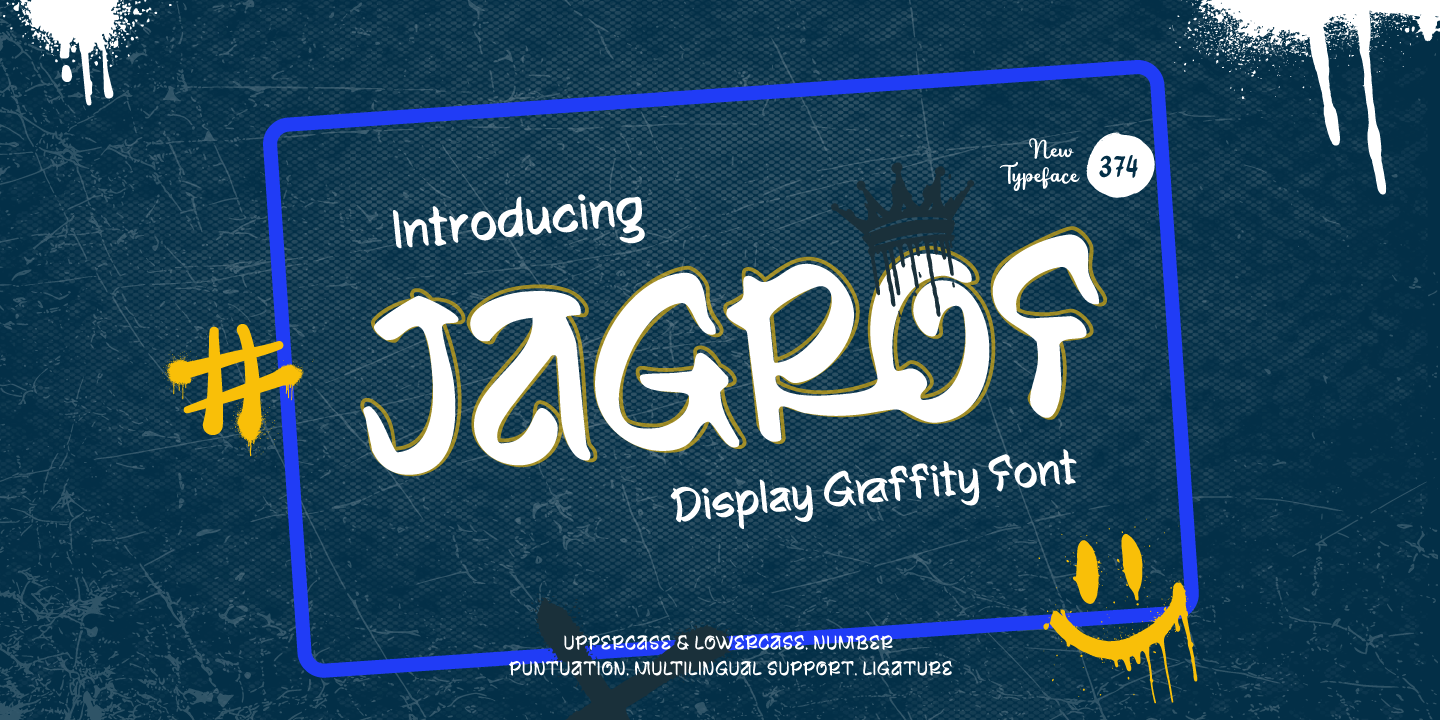
Jagrof Font is perfect for bold advertising campaigns, strong corporate branding, powerful statement signage, dynamic sports team logos, assertive business presentations, commanding headline designs, impactful poster graphics, and authoritative marketing materials. This forceful typeface excels in applications where strength and commanding presence are essential.
What makes Jagrof Font so exciting is its commanding ability to convey unwavering strength and authoritative presence through bold, power-inspired letterforms that embody the force of determined leadership and the uncompromising nature of confident decision-making. The font features robust character shapes with assertive influences and powerful styling that evoke images of strong foundations, decisive actions, and the magnetic presence of natural leadership. Its strength-focused design philosophy combines authoritative authenticity with contemporary boldness, making it perfect for business brands seeking to convey leadership power, confident authority, and connection to executive communities and leadership culture.
Jagrof Font belongs to the powerful display font family, specifically designed for leadership and authority-themed branding applications. This typeface family emphasizes commanding visual impact through strength-inspired styling and authoritative character elements, ensuring authentic leadership presentation across various corporate and executive-focused design projects.
Command attention with Jagrof Font Free Download, a typeface that embodies the unwavering strength of authoritative leadership and executive presence. This powerful font delivers exceptional impact for business applications, featuring comprehensive character sets with leadership symbols and commanding punctuation marks that capture the essence of executive authority and business strength. Its boldly constructed letterforms maintain excellent readability while preserving the authentic powerful aesthetic across various sizes, from small business cards to massive corporate headquarters displays. The font's distinctive commanding personality makes it invaluable for designers creating leadership brands, executive materials, and authoritative content where conveying strength, leadership, and commanding presence is crucial for engaging business communities and executive audiences seeking authentic leadership experiences and powerful, confidence-inspiring corporate authority and business excellence.